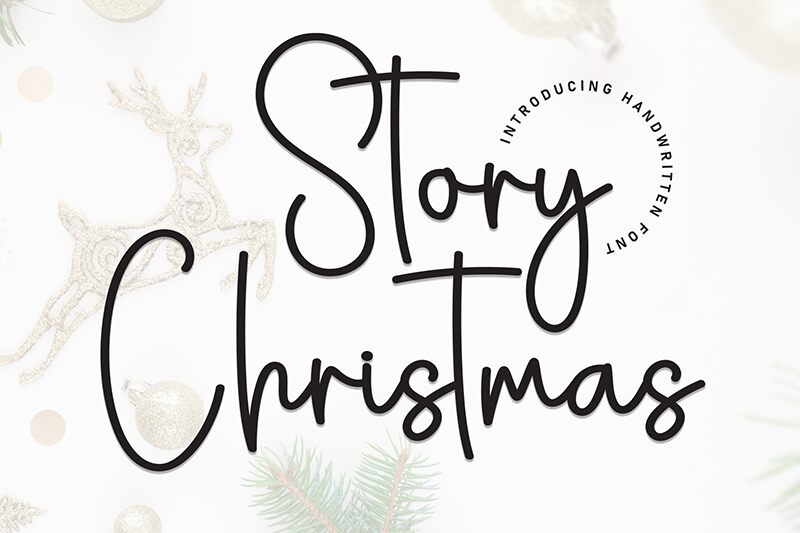
Story Christmas
Story Christmas font is a free handwritten font designed by Scratchones with an elegant, flowing design. Its letters are subtly connected, and each line ends with decorative embellishments which gives originality to the text it creates. Each of its elements looks light and thus doesn’t overwhelm the viewer allowing this tool to be used in multiple settings.
This font is especially ideal for Christmas-themed designs such as cards, posters, and decorative projects. Spice up your social media pages including Instagram or create invitations, packagings, girly magazines, wedding stationery sets among others. In addition to being easily legible in print projects, websites would also greatly benefit from using this handwriting tool.